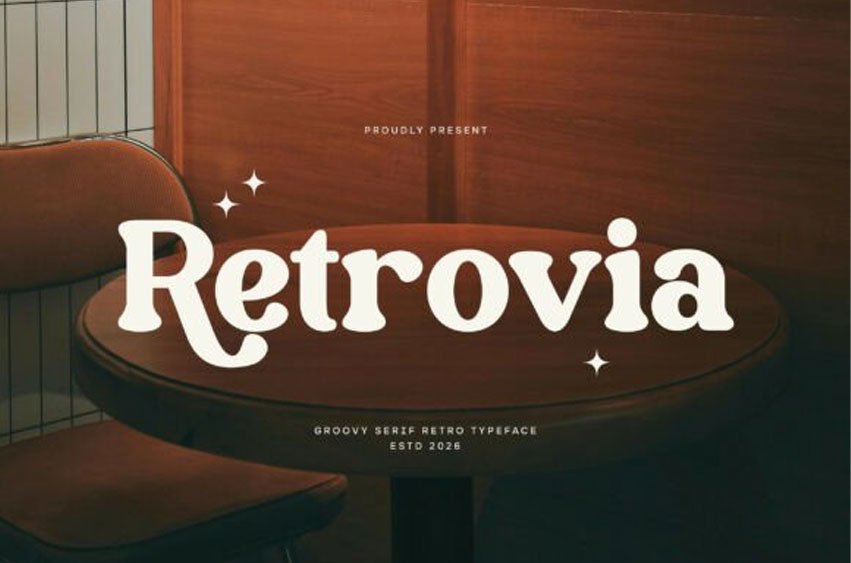
Retrovia Font
Retrovia Font is a groovy retro serif font inspired by the bold and playful typography of vintage design. Featuring distinctive serif shapes, smooth curves, and a charming retro personality, Retrovia brings a nostalgic yet stylish touch to any creative project.
Its expressive letterforms capture the spirit of classic retro aesthetics while maintaining a clean and modern feel.